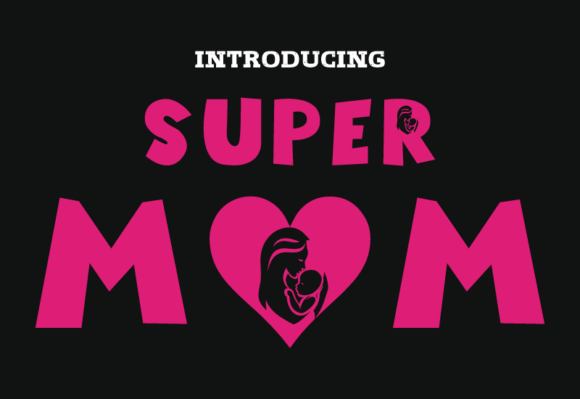
Super Mom Typeface: The Ultimate Display Font for Branding
When I was redesigning my handmade candle labels last month, I realized that my brand needed a font with more personality than just standard letters. That is when I discovered Super Mom, a uniquely crafted display font that completely transformed how my business looks online and on shelves. This distinct typeface is designed not just to be eye-catching, but to bring a touch of warmth and authority to every project. As a small business owner, I know that choosing the right fonts can make or break your visual identity, and this one delivered exactly what I needed.
How Super Mom Elevates Mother s Day Initiatives and Mom-Centric Endeavors
The moment I started using Super Mom, I understood why it is perfect for Supercharge your Mother s Day initiatives and mom-centric endeavors. Whether you are launching a new collection for moms or creating a special campaign, this display font captures the spirit of strength and care. It works beautifully on digital ads promoting gifts for mothers, making your offers stand out in crowded social media feeds. Instead of generic text, you get a style that feels personal and celebratory. This unique approach helps your brand connect emotionally with customers who are looking for something special for their loved ones.
Super Mom for Bakery Packaging and Product Label Design
I decided to test Super Mom on my bakery boxes, and the results were immediate and impressive. When printing product labels for artisanal goods, you need Display typography that remains legible even at smaller sizes. The bold character of this typeface ensures that your brand name pops off the package without looking cluttered. I paired it with a clean sans serif font for the ingredients list, which created a balanced and professional look. Customers told me they found the packaging more trustworthy because the text looked polished and intentional. Using the right Fonts for packaging design can significantly increase perceived value.
Super Mom Enhances Social Media Graphics and Online Shop Banners
For my online shop, I needed fresh graphics for my website banners and Instagram stories. Super Mom provided the perfect solution for these digital assets. Its strong lines catch the eye instantly as users scroll through their feeds, driving more traffic to my store. I used it for short phrases like "New Arrivals" or "Sale Ends Soon," which made the calls to action impossible to miss. Unlike heavy editorial fonts, this display style keeps the message clear and energetic. By integrating this creative font into my marketing materials, I saw better engagement rates and a more cohesive brand identity across all platforms.
Why Display Fonts Matter for First Impressions
Typography plays a massive role in how customers perceive your business within the first few seconds. Super Mom is a prime example of how a well-chosen Display font can set the tone for your entire brand. It signals confidence and creativity, which are essential traits for any entrepreneur. When potential clients see your logo or main headline, they form an opinion before reading a single word of your description. A generic font might blend in, but a distinctive typeface like this one makes your business memorable. Investing in high-quality Fonts is essentially investing in your reputation.
Super Mom for Wedding Invitations and Elegant Branding
Beyond commercial products, I found that Super Mom also shines in event planning and wedding stationery. The font has a charm that fits perfectly with elegant branding projects. I experimented with it for invitation headers and program covers, where it added a touch of sophistication without being overly formal. It pairs exceptionally well with script fonts for the body text, creating a beautiful contrast between the structured display text and flowing handwriting. For designers working on weddings or boutique events, this typeface offers a versatile tool to create stunning visual experiences.
Simple Pairing Strategies for Better Readability
To get the most out of Super Mom, I recommend pairing it with a simple supporting font. Since it is a display typeface meant for headlines and short phrases, it needs a partner that doesn't compete for attention. A modern sans serif font works great for body copy on menus or flyers, ensuring that long lists of information remain easy to read. Alternatively, combining it with an elegant serif font can add a classic feel to brochures or business cards. The key is to let Super Mom do the talking while the secondary font handles the details. This balance creates a harmonious design that guides the viewer's eye naturally.
Super Mom for Café Menus and Restaurant Signage
Even if you run a café or a restaurant, this font can elevate your daily operations. I imagined using Super Mom for a chalkboard menu or a printed food list, and the possibilities seemed endless. The bold strokes ensure that item names are readable from a distance, which is crucial for signage. It brings a friendly yet professional vibe to the dining experience, making guests feel welcome. When designing a menu, you want the text to look appetizing and organized. This distinct typeface helps achieve that by giving structure to the layout while maintaining a warm atmosphere.
Moving forward with my business, I am confident that Super Mom will continue to be a staple in my design toolkit. It bridges the gap between fun and professional, making it ideal for a wide range of industries. Whether you are updating your packaging, refreshing your website, or planning a special event, this display font offers the versatility you need. Embracing better typography is a simple step that yields significant rewards for your brand's growth and recognition.